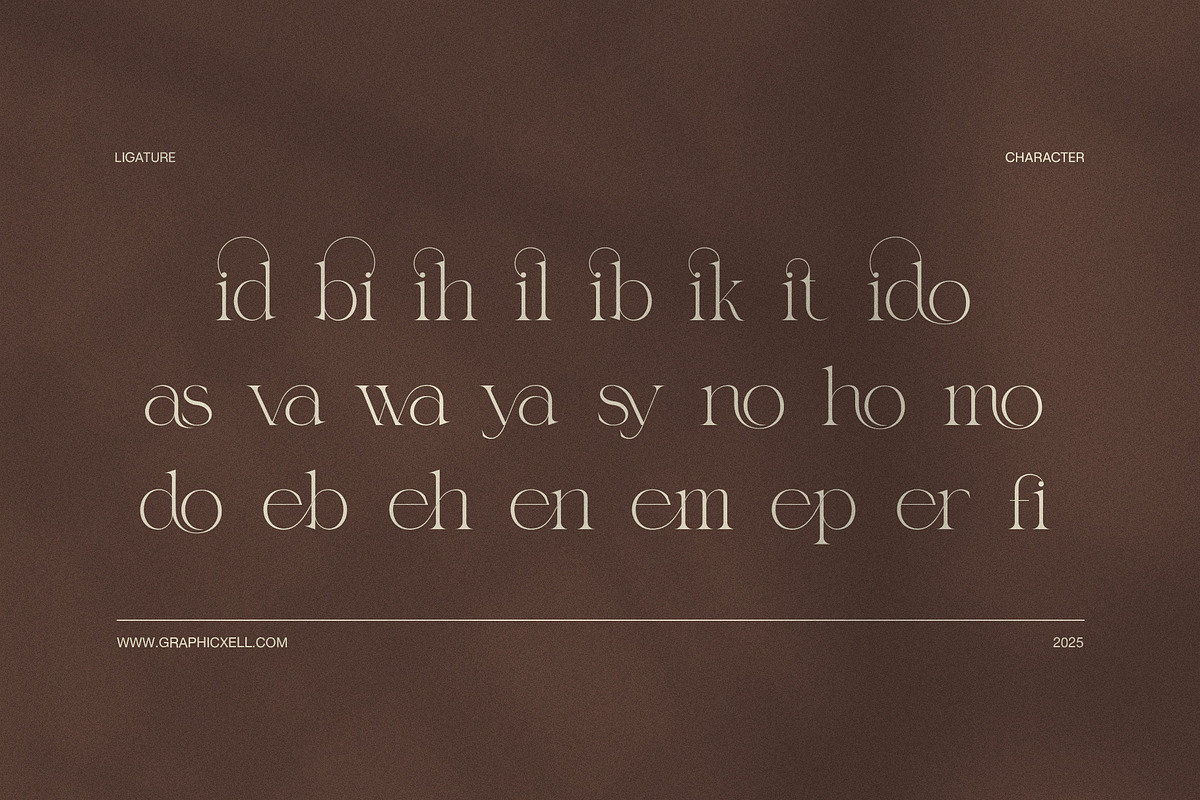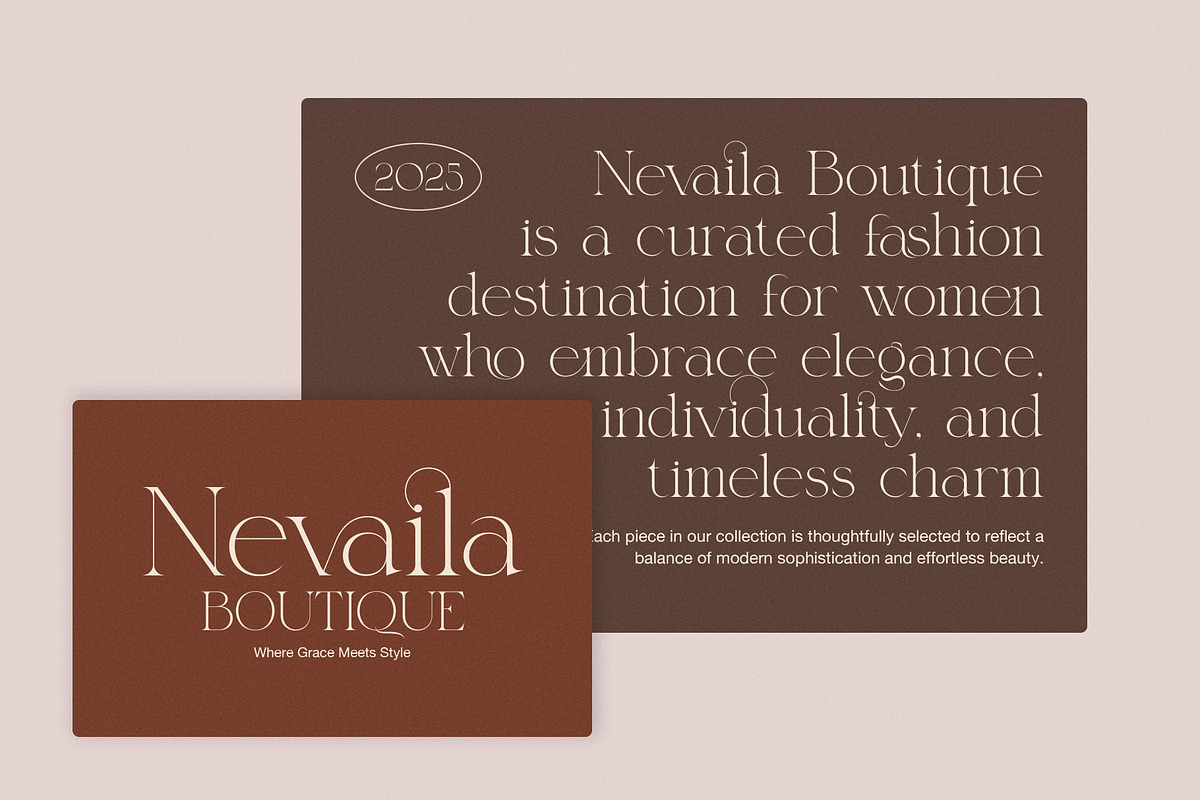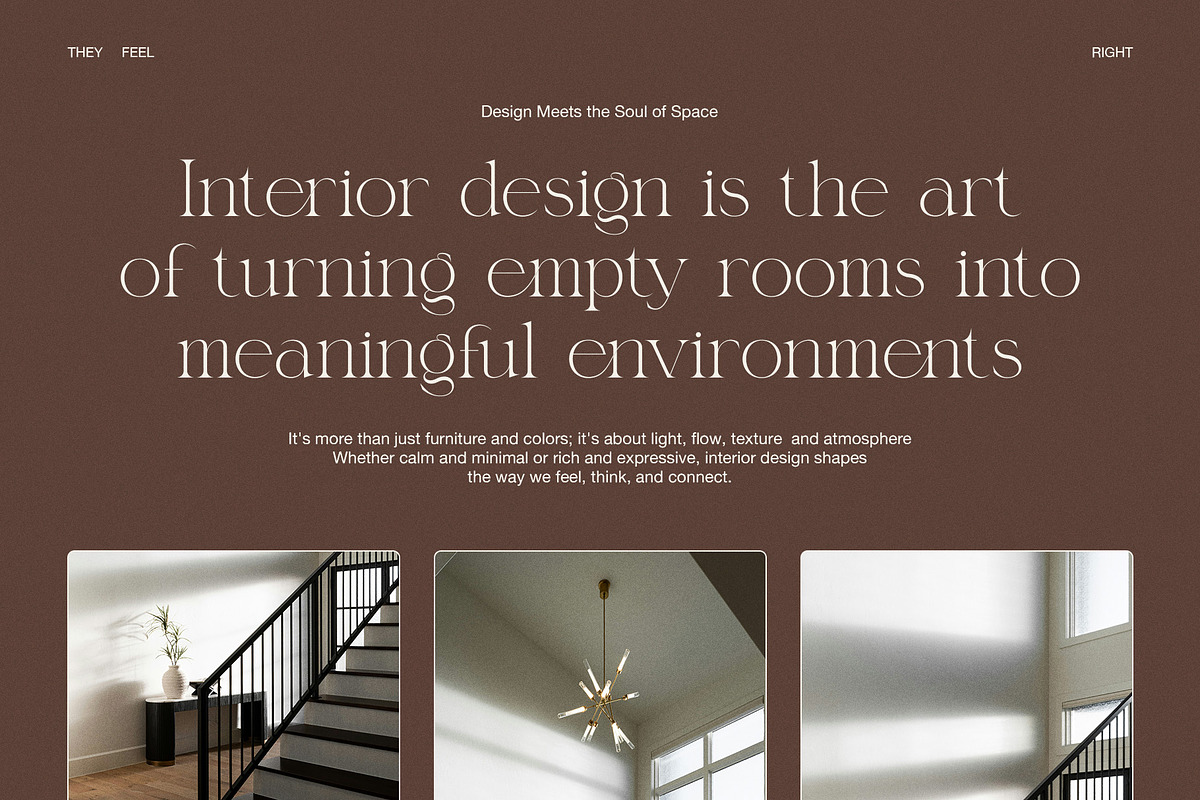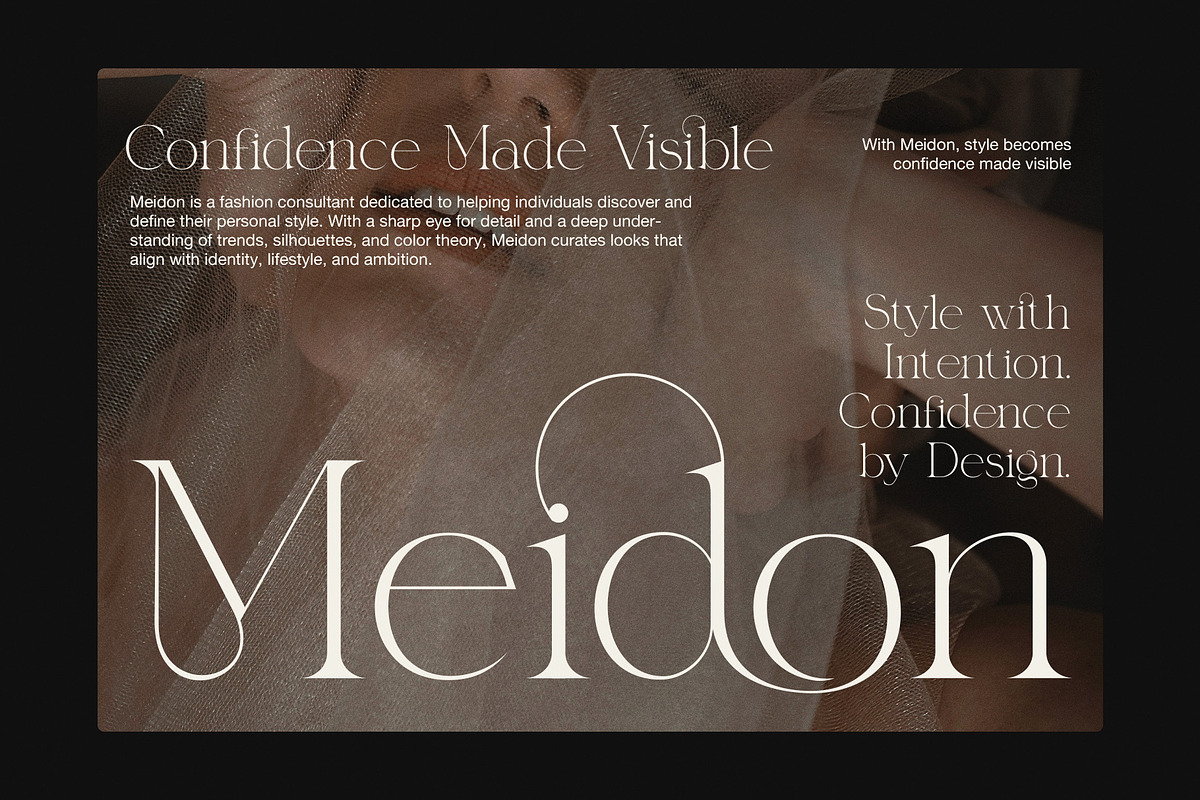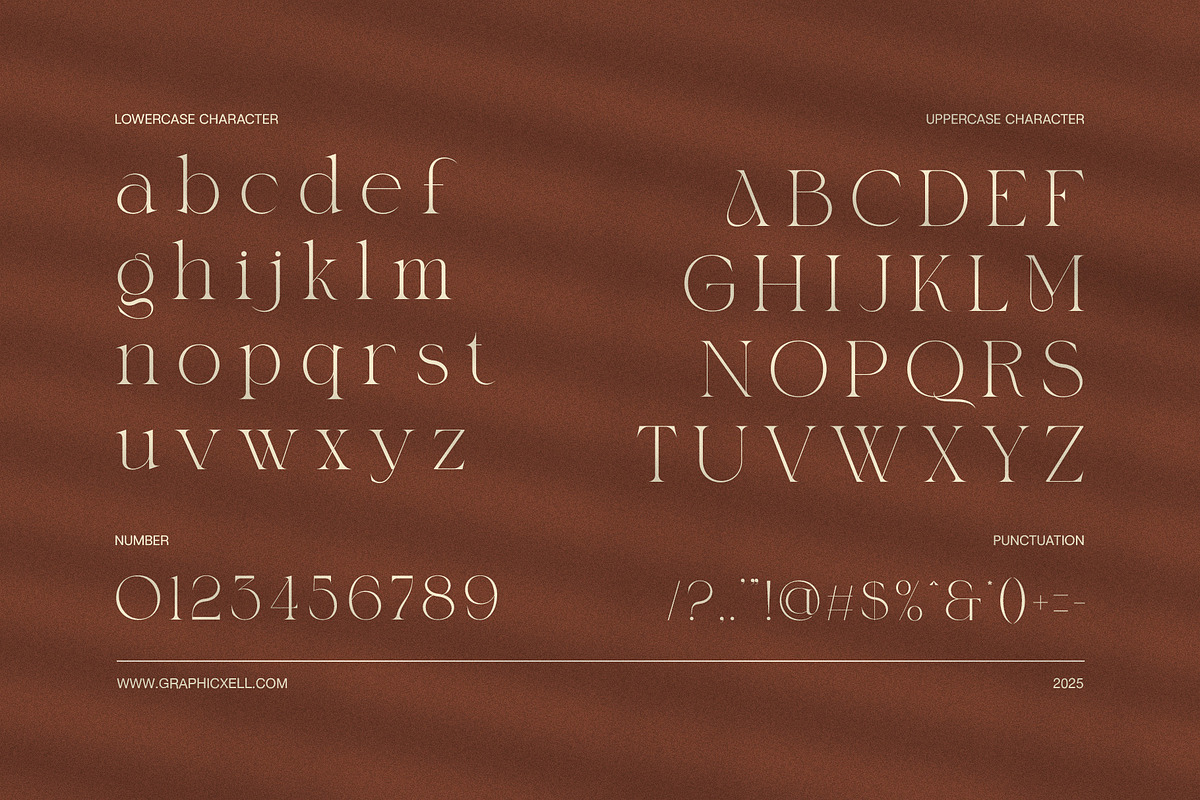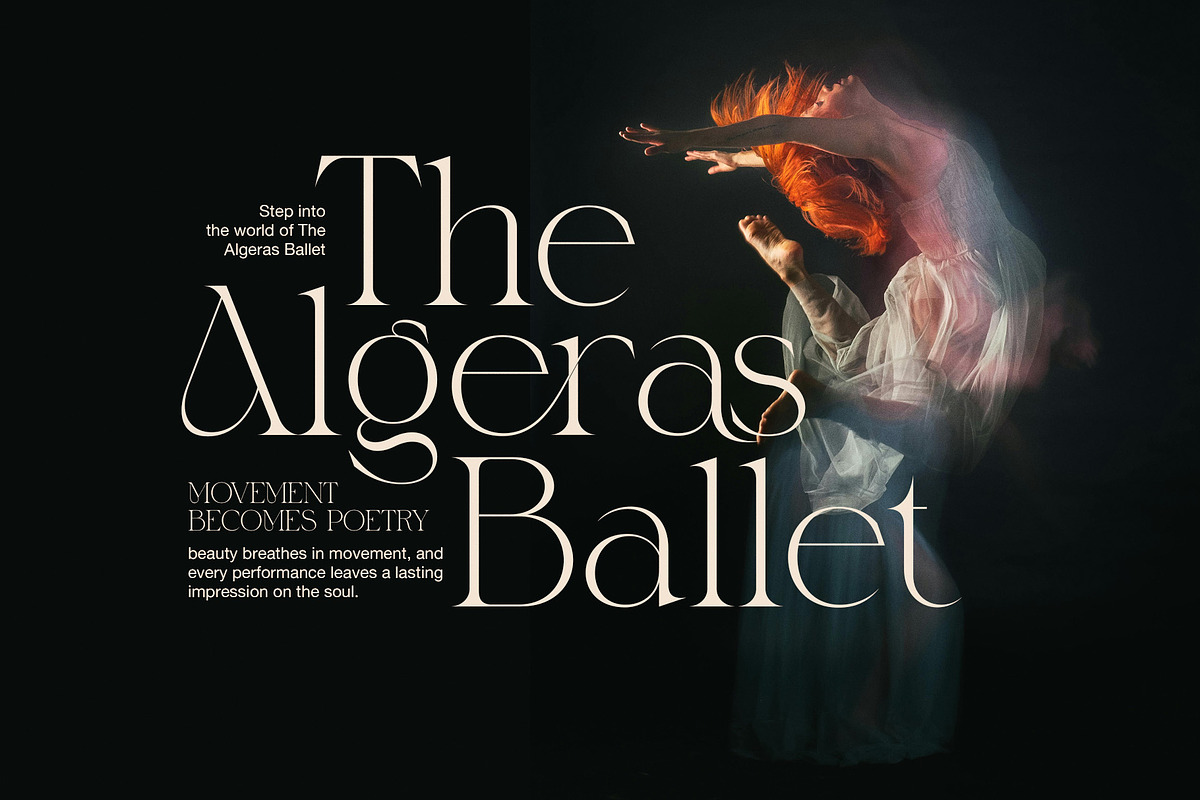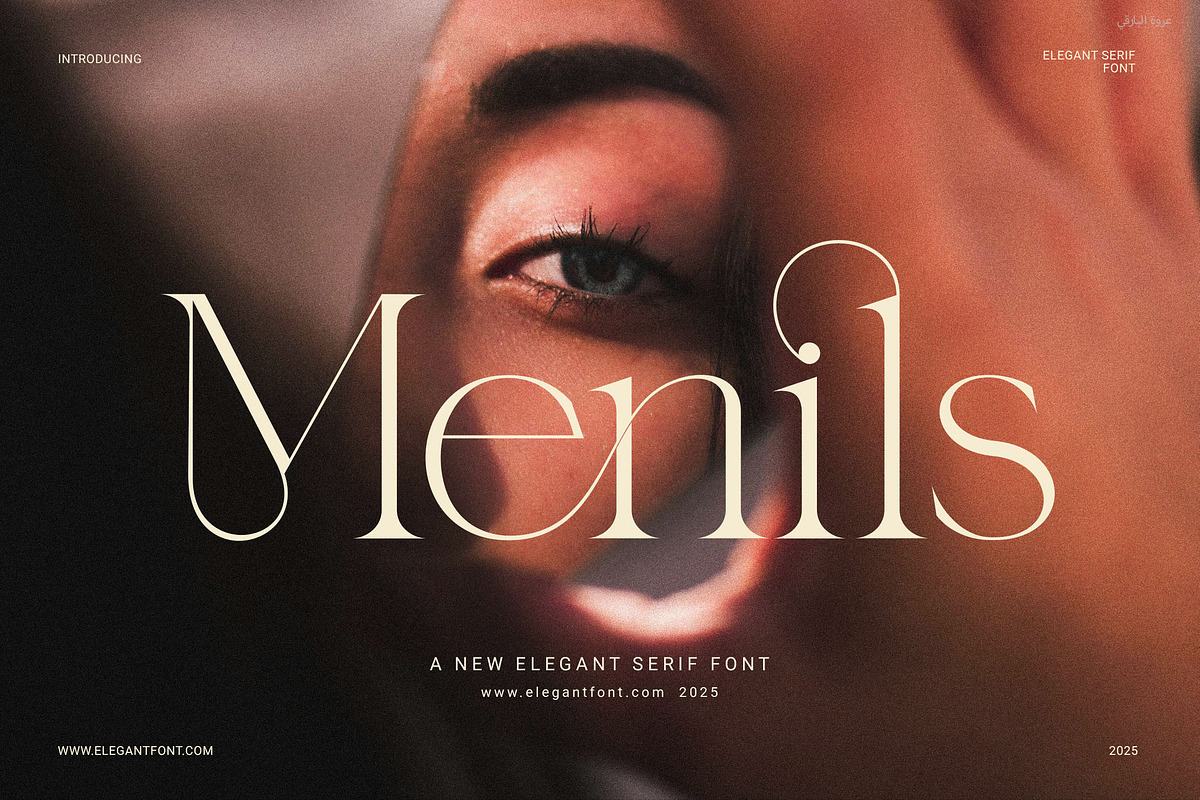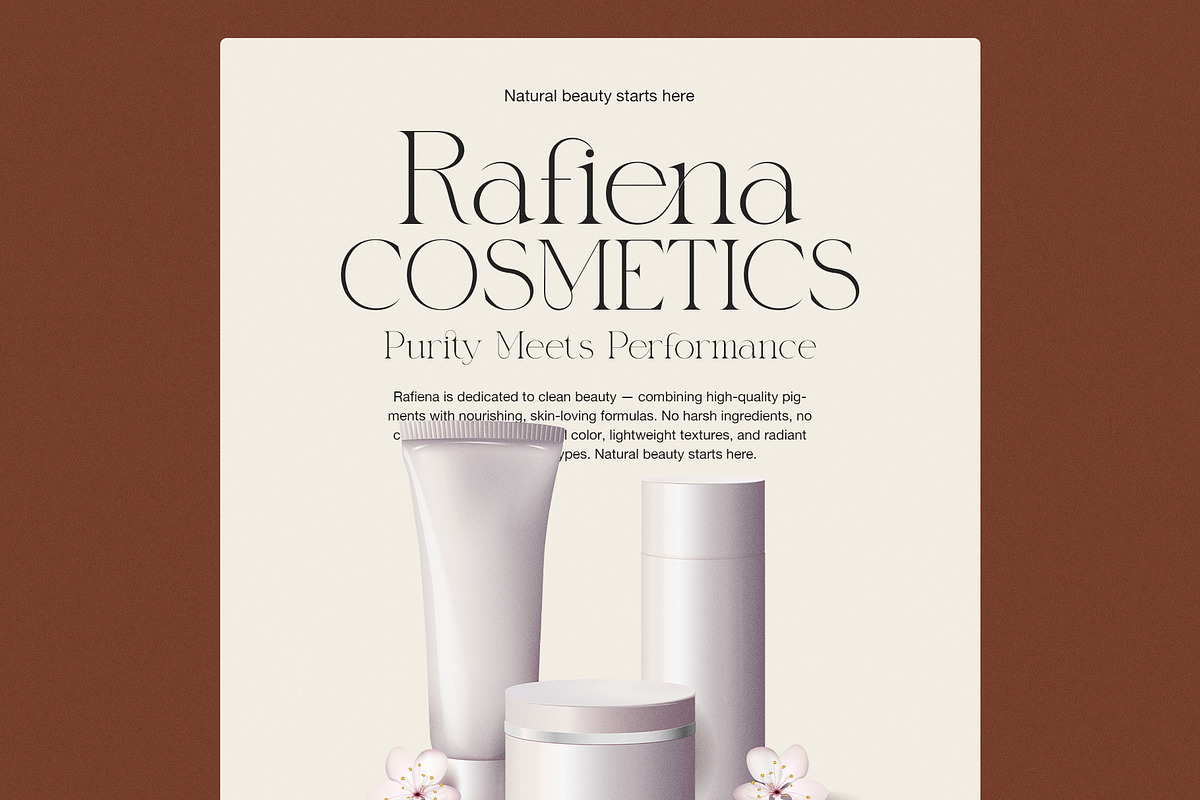
Menils Elegant Serif
Menils – A Clean and Elegant Serif Font for Modern Branding
Menils is a modern serif font that blends elegance and simplicity in one refined design. Built with smooth curves and proportional forms, this font is perfect for a wide range of design needs. Whether you're designing logos, websites, or printed materials, Menils adds a polished, professional feel to every project.
Moreover, Menils features functional ligatures that create a seamless flow between characters. As a result, your text appears more natural, balanced, and visually appealing. Its clean lines also help maintain readability across different sizes and formats.
What sets Menils apart is its ability to combine modern sophistication with timeless charm. While it's ideal for luxury branding, it also works beautifully in editorial layouts, packaging, and lifestyle projects. You can use it confidently in both minimalist and ornate designs.
Why Choose Menils:
Elegant serif style with a modern touch
Functional ligatures that enhance flow
Balanced proportions for visual harmony
Excellent readability in both digital and print
Brand identity and logo design
Editorial projects and magazine layouts
Web design and blog titles
Packaging, menus, and business cards
Invitations, portfolios, and boutique brands
In short, Menils helps you create work that looks sophisticated yet approachable. Thanks to its clear design and flexible features, it’s an excellent choice for any designer seeking a reliable, beautiful serif typeface.